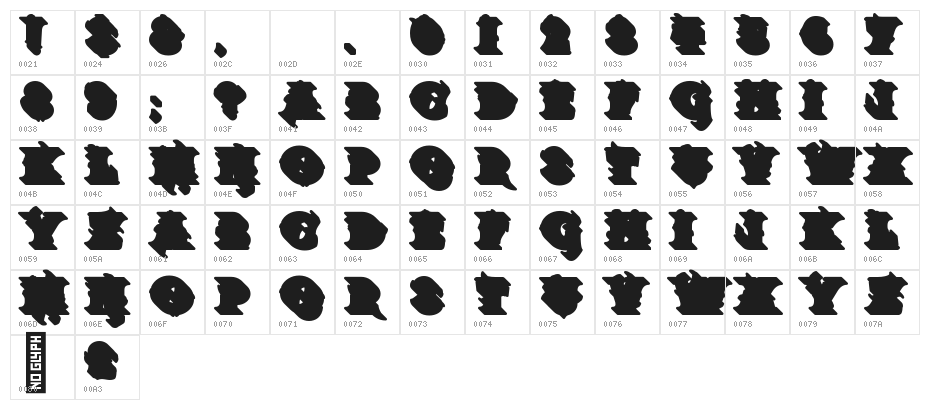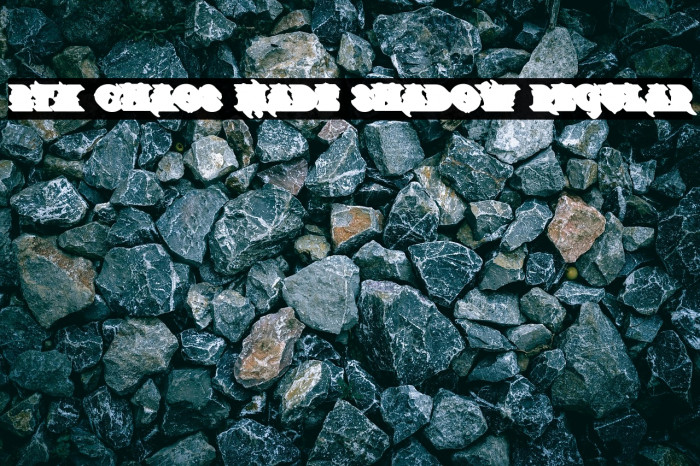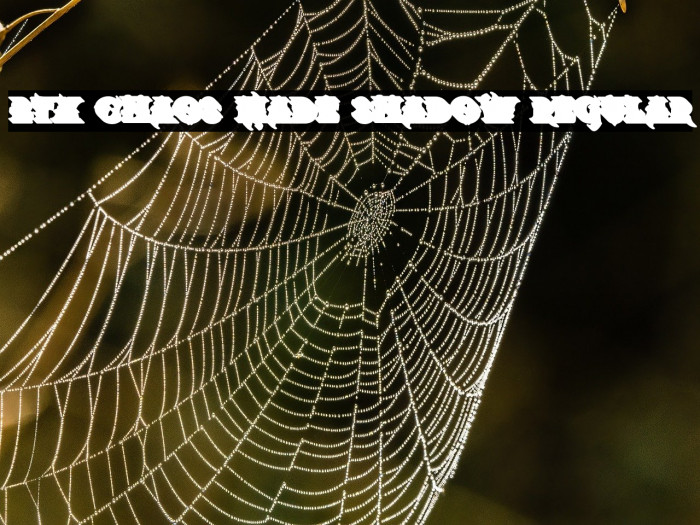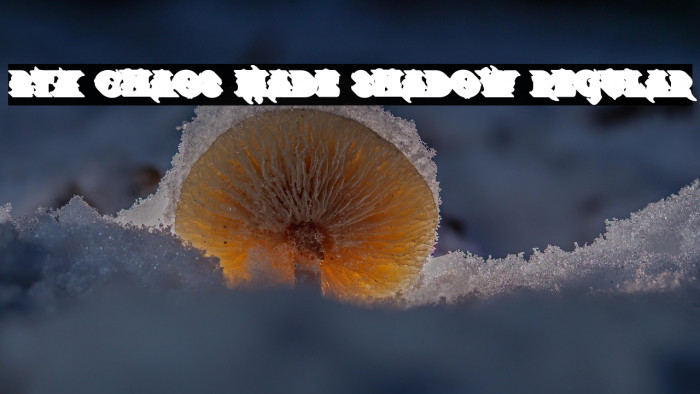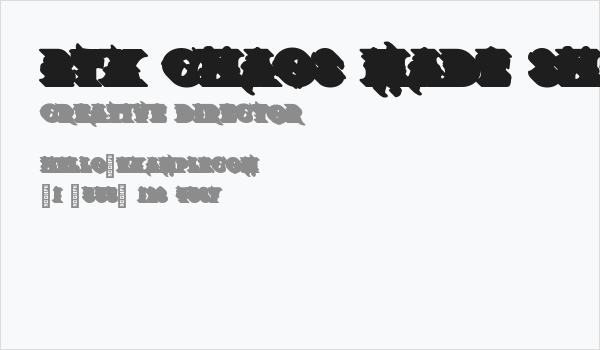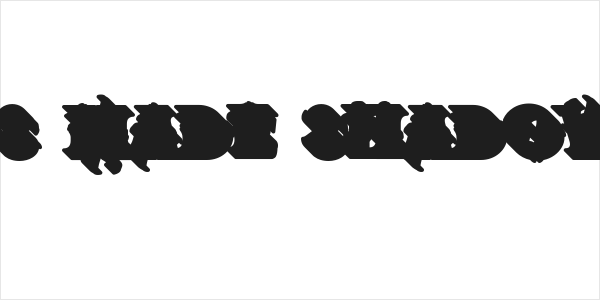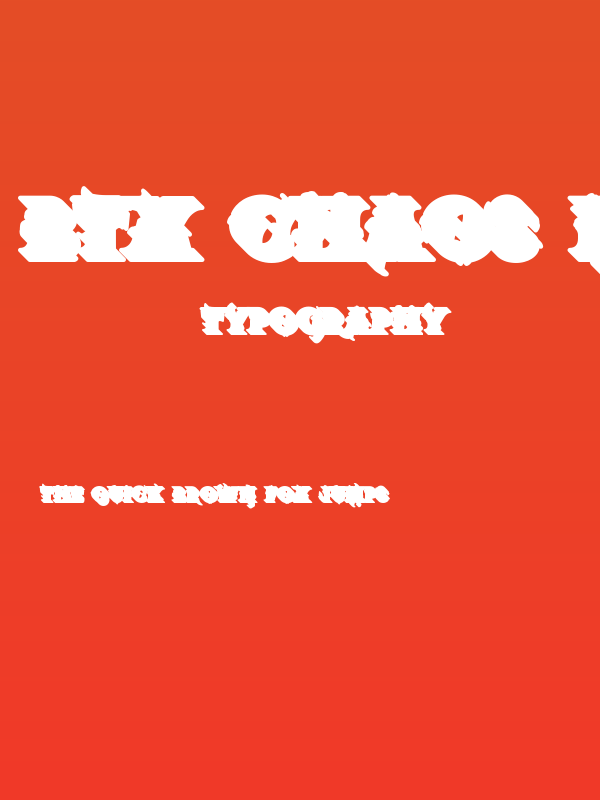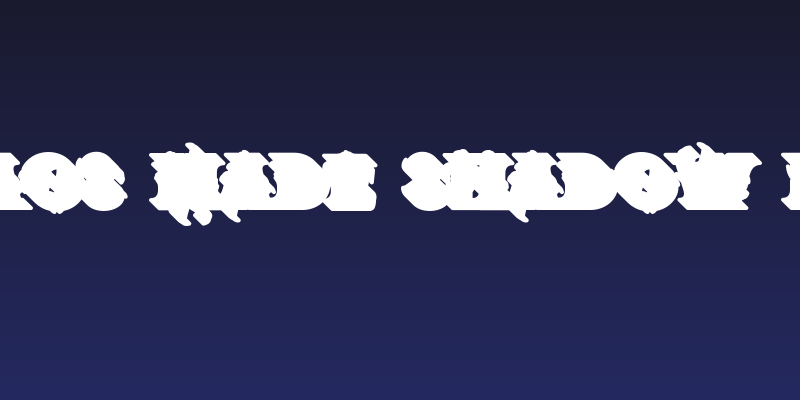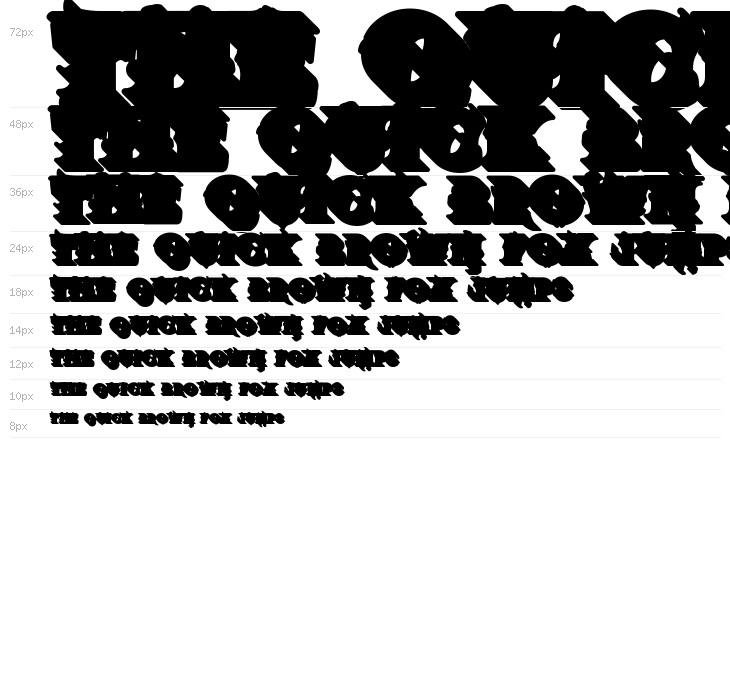
BTX-Chaos-Made-Shadow Regular Font
BTX-Chaos-Made-Shadow Regular Description
This font features a bold and dramatic style with heavy shadow effects that create a sense of depth and dimension. The characters are thick and blocky, with sharp edges and a strong presence. The shadowing adds a chaotic and dynamic feel, making it stand out as a display typeface. Its unique design is eye-catching and can be used to convey a sense of boldness and creativity. The font's heavy weight and intricate shadowing make it suitable for impactful headlines and titles, where attention-grabbing visuals are essential.
| Use Case | Headlines |
| Proposed Projects | Ideal for posters, album covers, event flyers, and any project requiring a bold, eye-catching headline. |